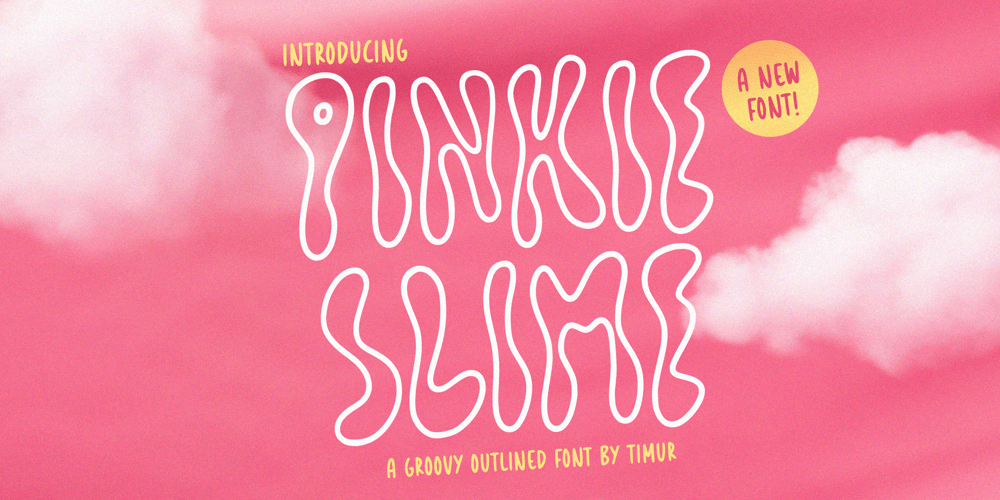
Pinkie Slime Font Family was designed by Wara Sigit Tri Pamungkas and published by Timurtype. Pinkie Slime contains 1 styles and family package options. Introduced by Timurtype Studio!Pinkie Slime is a Groovy Outlined FontThis font is a whimsical and energetic display font that leaps off the page with its bold, outlined characters. Inspired by playful aesthetics and vibrant colors, each letter in Pinkie Slime is carefully crafted to evoke a sense of fun and creativity. Whether used for headlines, posters, or branding, this groovy font injects a lively charm into any design, making it perfect for projects that seek to stand out with a touch of animated flair.Pinkie Slime also supports multilingualismEnhance your designs with our original fonts, feel free to comment or provide feedback, Enjoy the fonts 😊Thank You